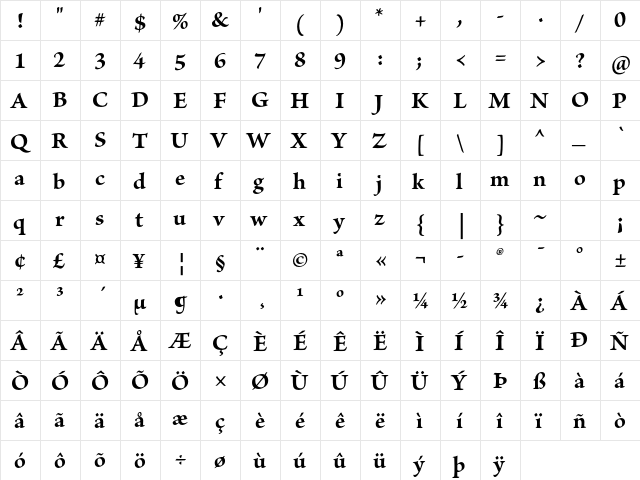
Brioso Pro Bold
| Designer | Robert Slimbach |
Design Context for Brioso Pro Typeface
Brioso Pro takes a measured approach to typography — its balanced proportions and neutral character make it a reliable workhorse for both digital and print work. The heavy weight commands attention and anchors typographic hierarchies.